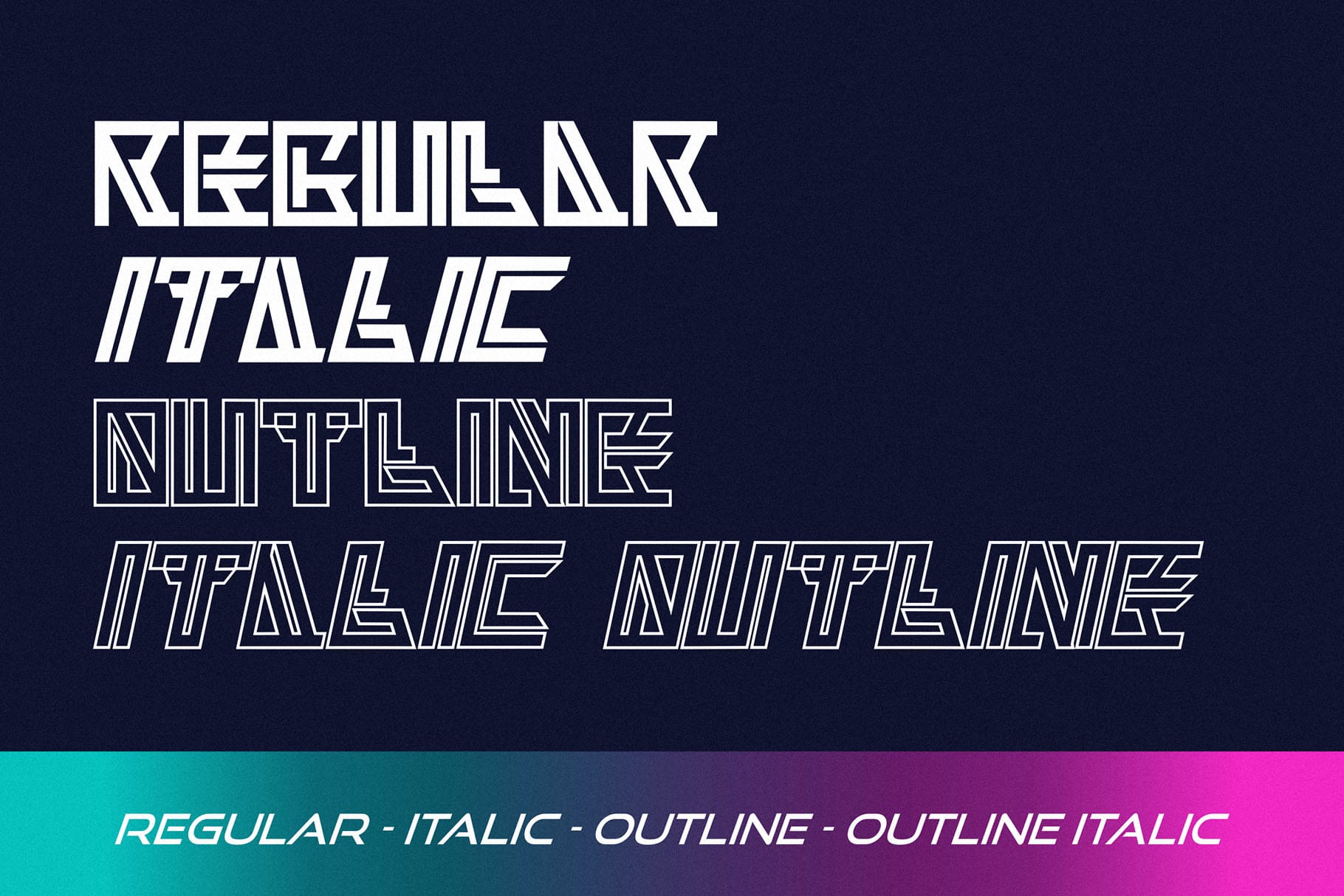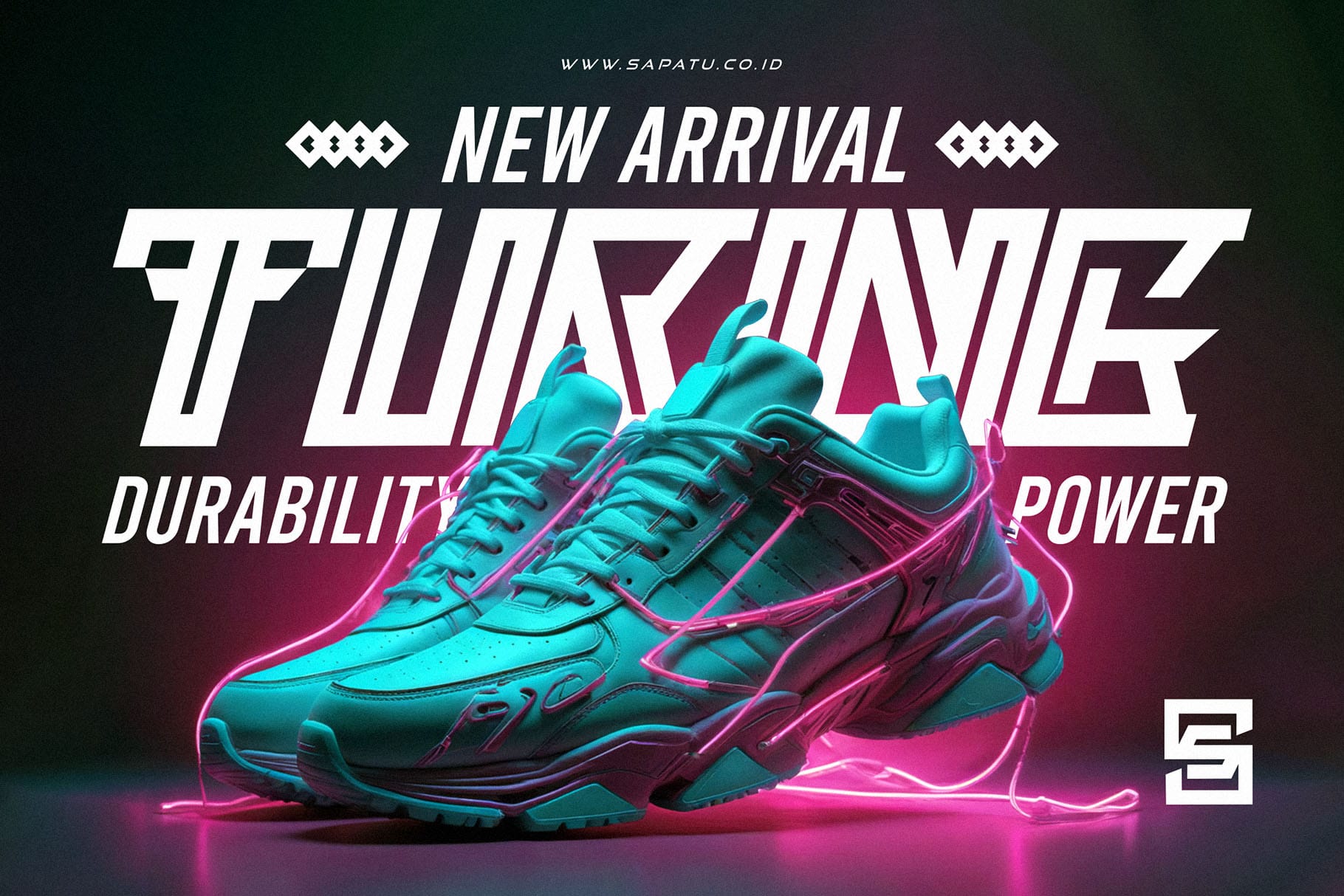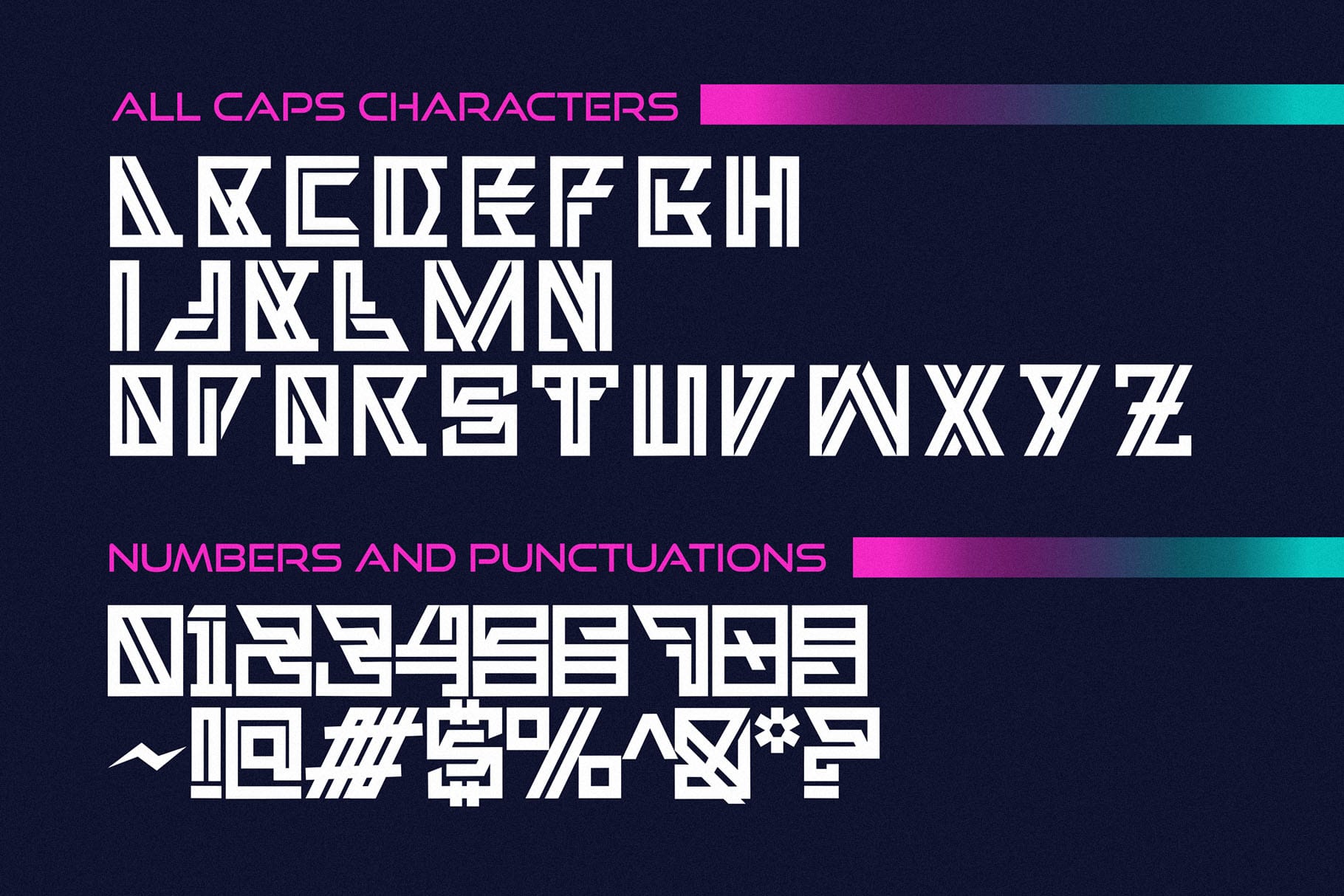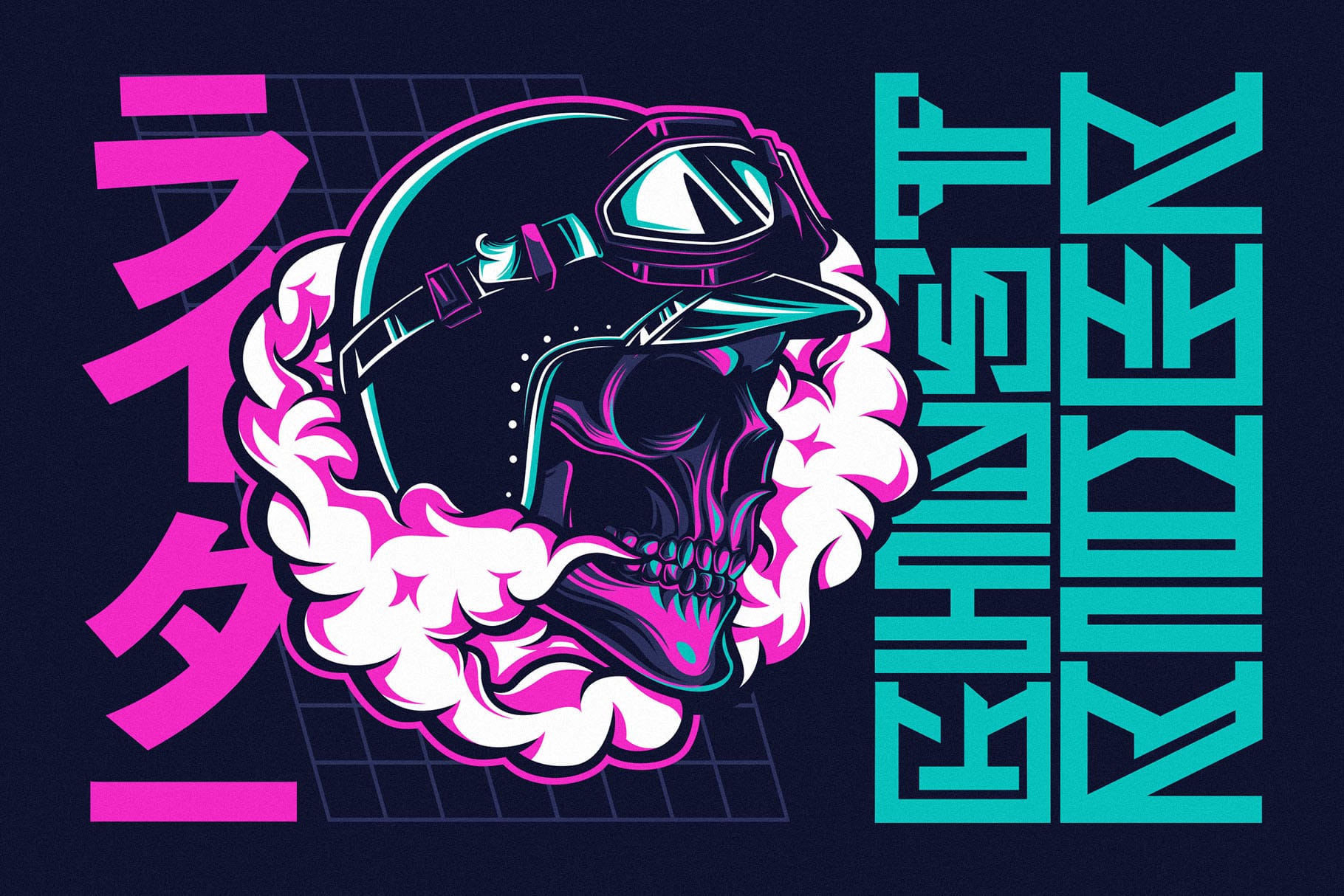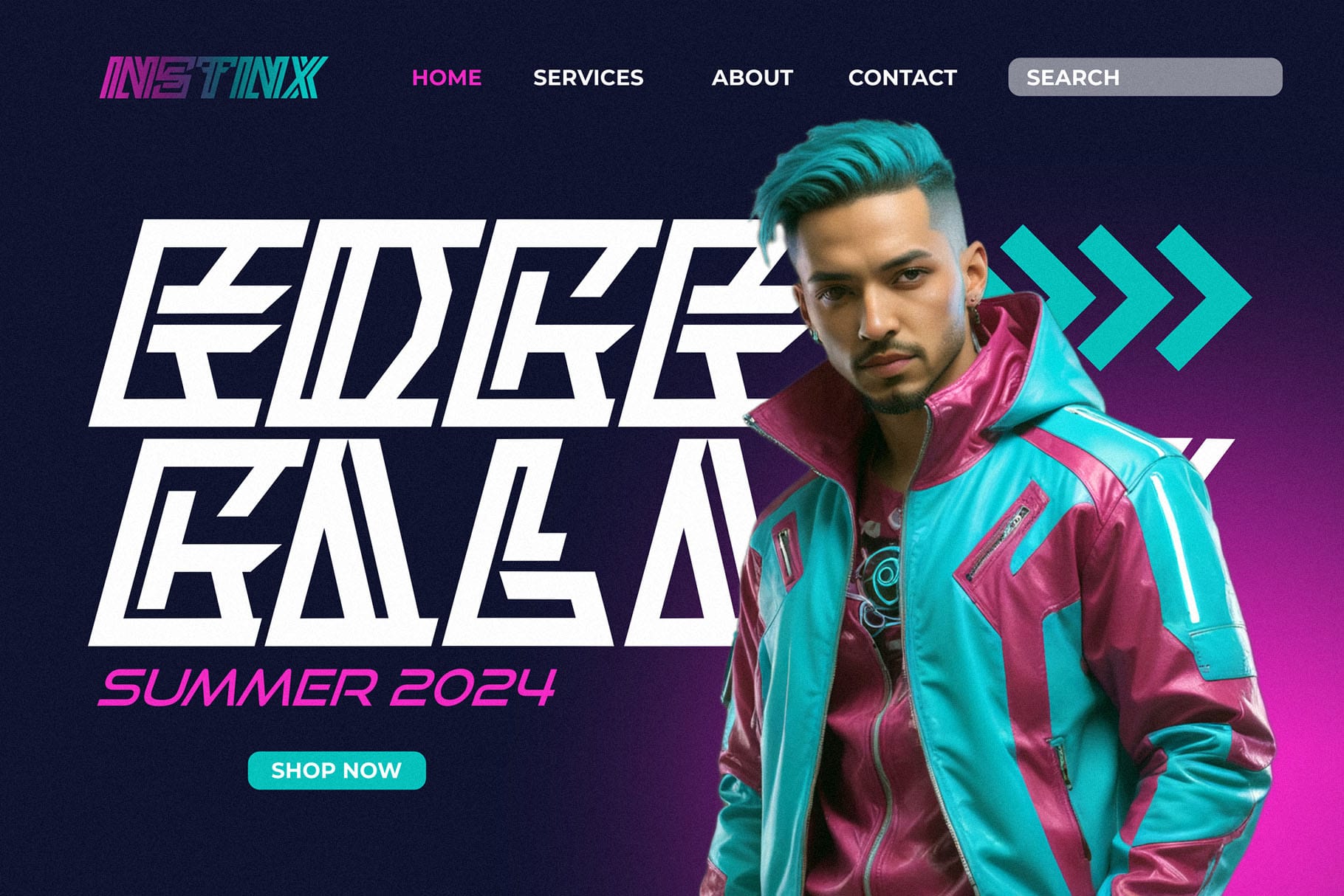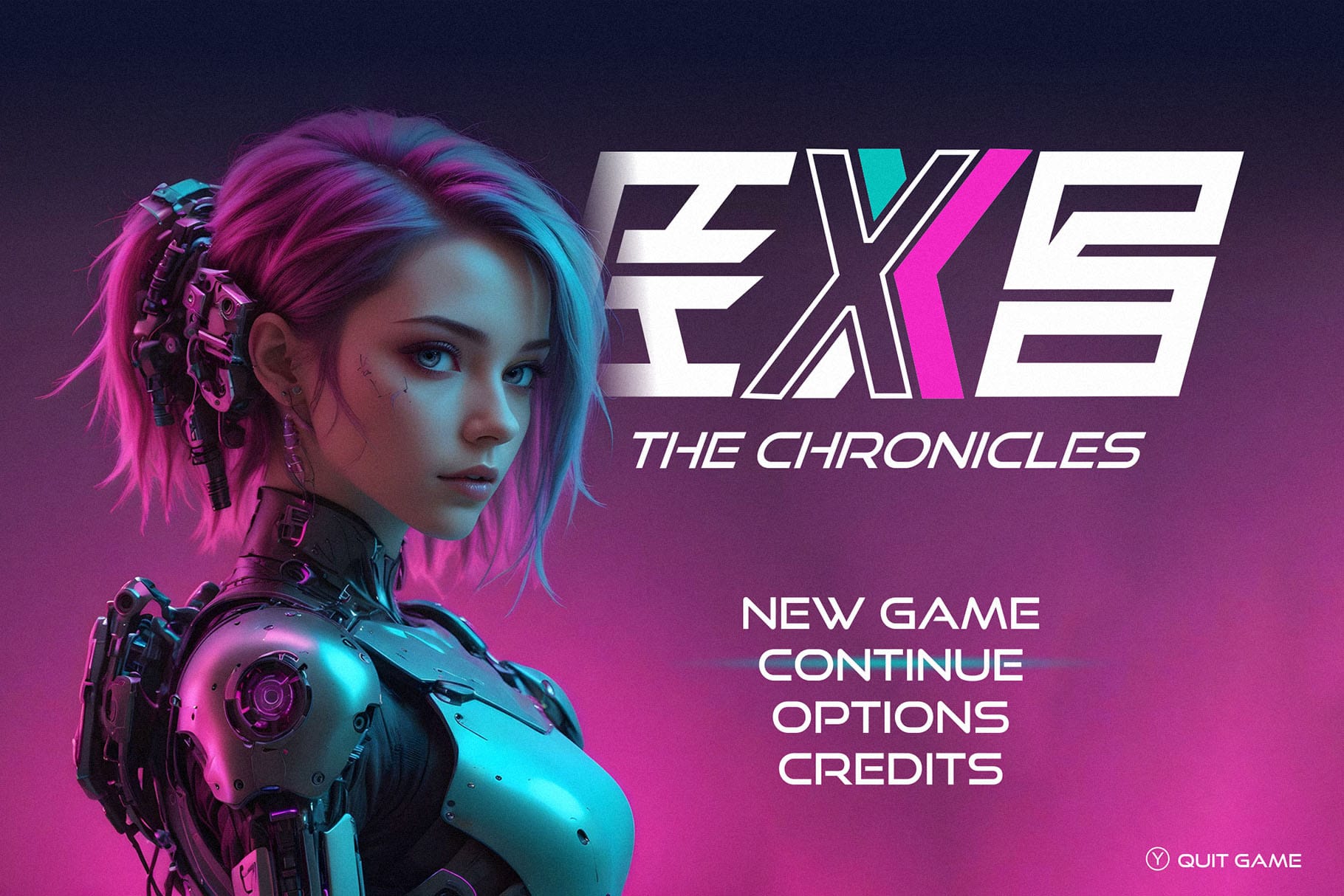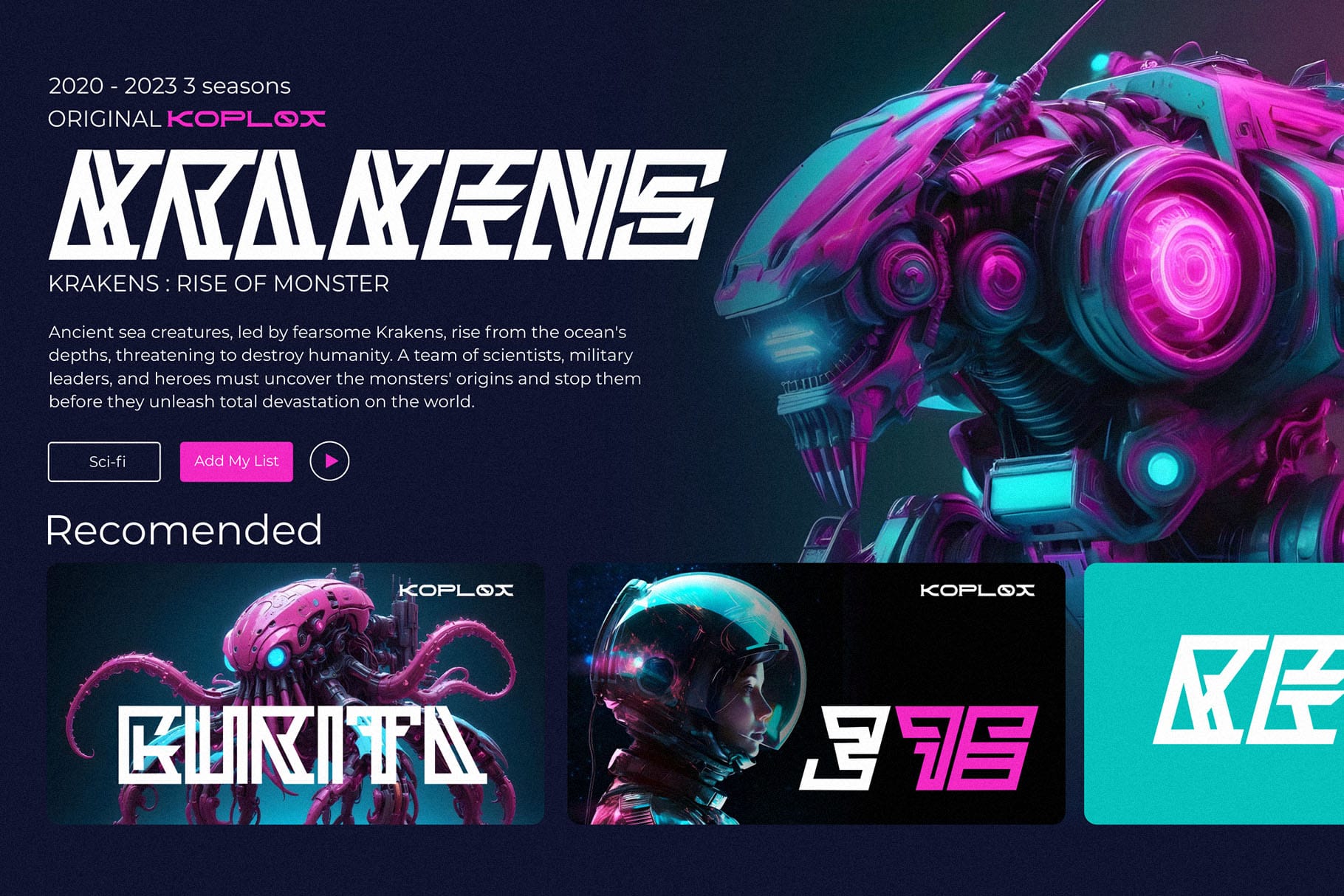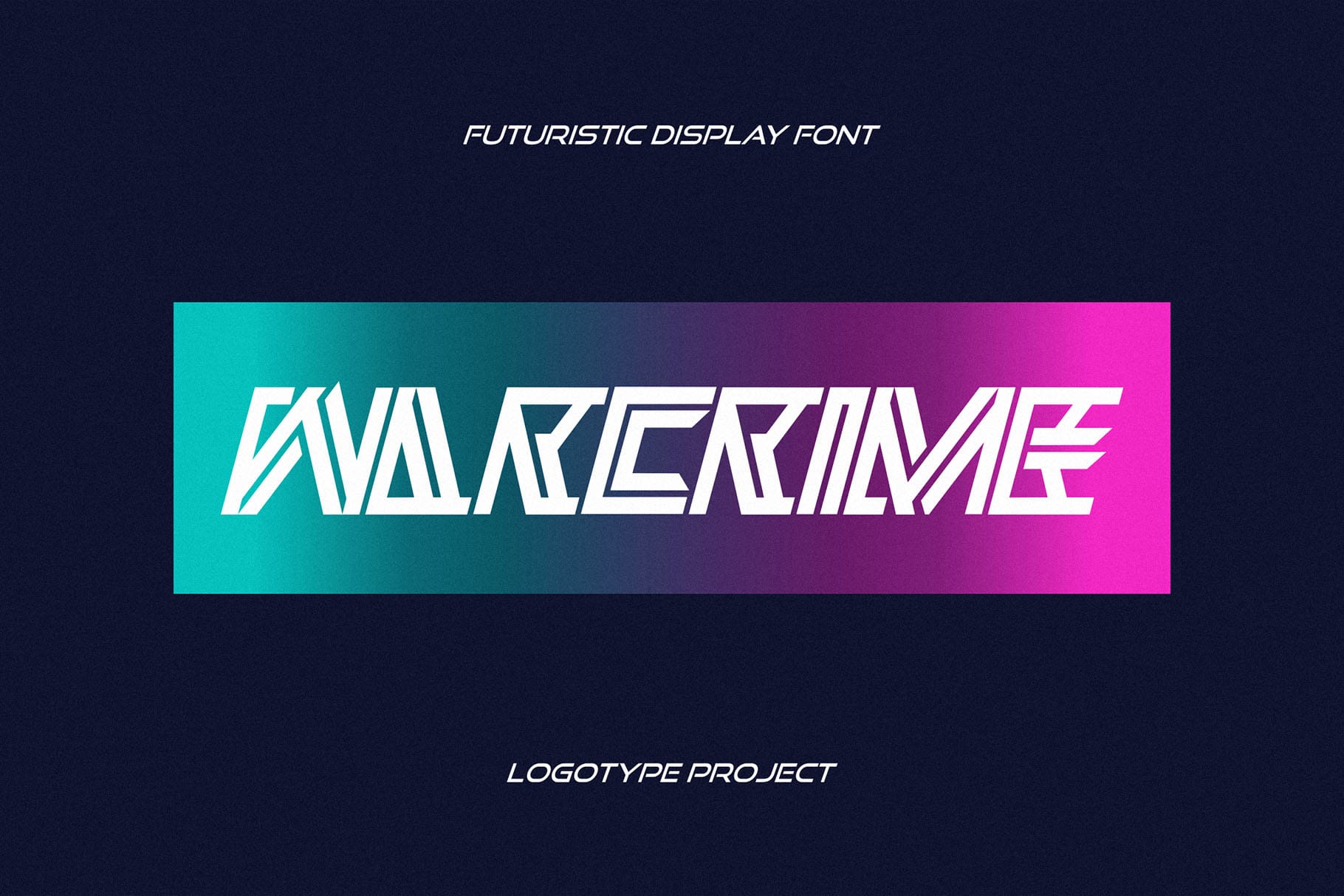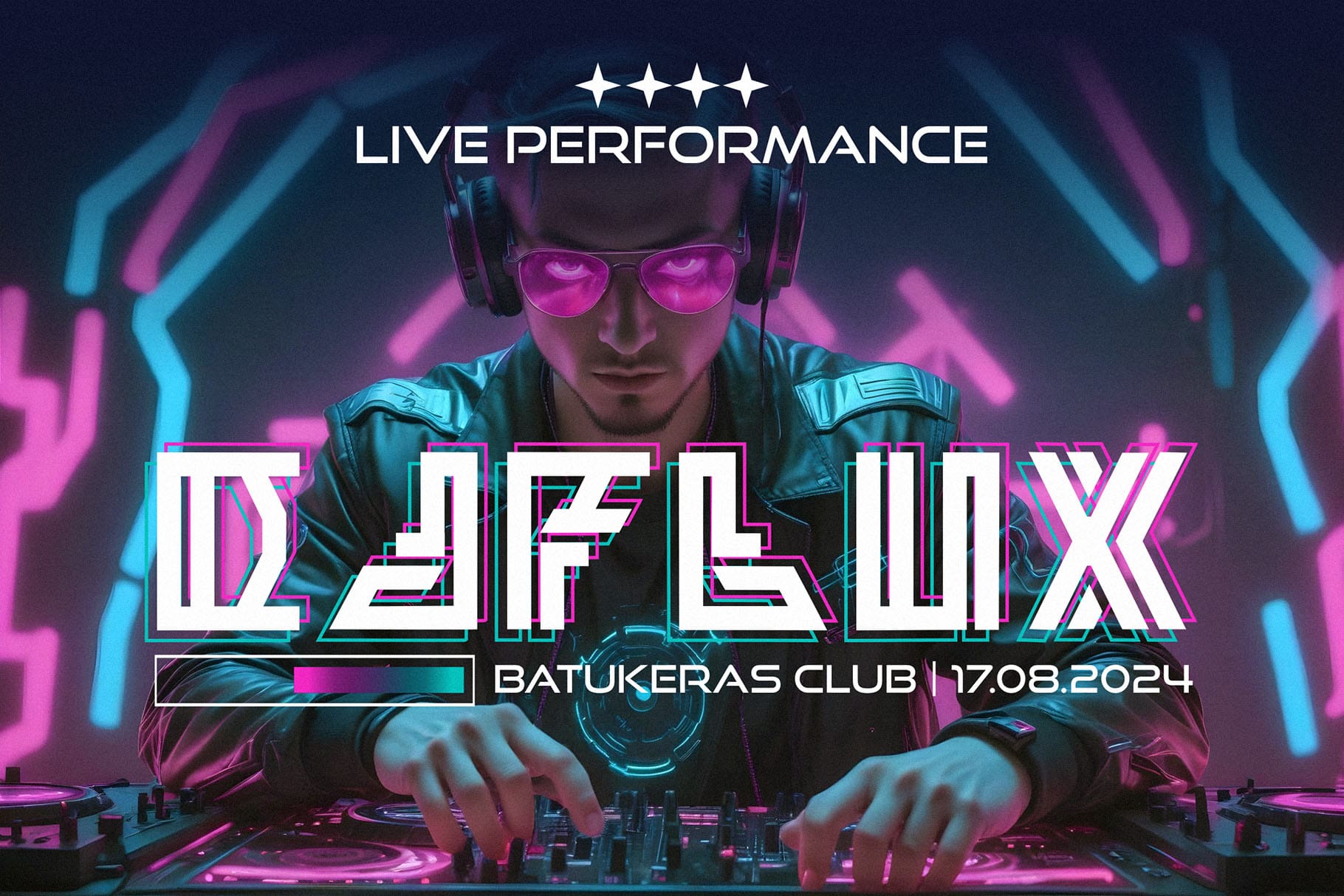
Neon Strix Futuristic Display Font for Future-Ready Visuals
Neon Strix Futuristic Display Font is created for designers who need a strong, modern, and future-facing type style for bold visual work. Built as a display font family with Regular, Italic, Outline, and Outline Italic styles, Neon Strix gives you more flexibility when creating impactful headlines, futuristic branding, digital posters, gaming visuals, product graphics, and tech-inspired layouts.
This font is especially useful when your project needs typography that feels confident, contemporary, and visually direct. Instead of relying on ordinary lettering, Neon Strix helps your words become the main visual element. It is made for titles, short phrases, logos, social media graphics, and promotional artwork where the typography needs to lead the composition.
Neon Strix carries a futuristic display personality with a strong digital direction. It is designed for projects that need a modern, technology-inspired tone without feeling overly complicated. The display nature of the font makes it best for short, expressive text rather than long reading paragraphs.
The Regular style works well for strong titles and compact branding moments. The Italic style adds movement and energy, making it useful for action-focused visuals, fast-paced layouts, sports-inspired graphics, or promotional headlines. The Outline style brings a more graphic look, giving designers another way to create layered poster typography, title treatments, merchandise concepts, and editorial display compositions.
Because Neon Strix includes both filled and outline styles, it gives you room to build contrast within a single font family. You can use the Regular style for the main message, then bring in the Outline or Outline Italic style for secondary words, background text, or decorative typographic accents. This makes the font especially practical for designers who want a cohesive futuristic look without mixing too many unrelated typefaces.
Best Use Cases for Neon Strix Futuristic Display Font
Neon Strix Futuristic Display Font is a strong choice for tech branding, gaming graphics, digital posters, music artwork, esports visuals, apparel design, YouTube thumbnails, sci-fi titles, event promotions, product labels, and bold social media content.
For brand designers, it can help create a memorable visual direction for modern businesses, digital products, entertainment brands, gaming communities, and creative campaigns. For content creators, it works well on thumbnails, banners, channel graphics, and promotional visuals where the font needs to be noticed quickly.
For packaging designers and merchandise sellers, Neon Strix can be used for statement-driven products, futuristic labels, apparel prints, stickers, and digital assets. The outline styles are especially useful when creating layered typography for print-on-demand artwork or poster-based products.
It is also a practical choice for designers working on sci-fi, cyber, technology, gaming, and modern editorial layouts. Whether you are designing a visual identity, a one-off poster, a digital product cover, or a set of promotional graphics, Neon Strix gives your typography a clear futuristic voice.
Key Features
- Futuristic display font style
- Includes Regular, Italic, Outline, and Outline Italic styles
- Standard characters included
- Punctuation included
Designers love Neon Strix because it gives them a ready-to-use futuristic look with multiple display styles in one package. The family structure makes it easier to create hierarchy, contrast, and visual rhythm without searching for another font to match the mood.
The Regular style can hold the main headline. The Italic style can add speed and direction. The Outline style can create a more graphic, open look. The Outline Italic style can bring extra movement when the design needs something more dynamic. This makes Neon Strix useful for both quick client work and more refined branding concepts.
For creative studios, the font can support campaigns that need a strong technology-inspired identity. For digital product sellers, it can help build visual assets that feel modern and distinctive. For crafters and merchandise designers, the bold display style gives short words and phrases more presence on apparel, stickers, posters, and printable artwork.